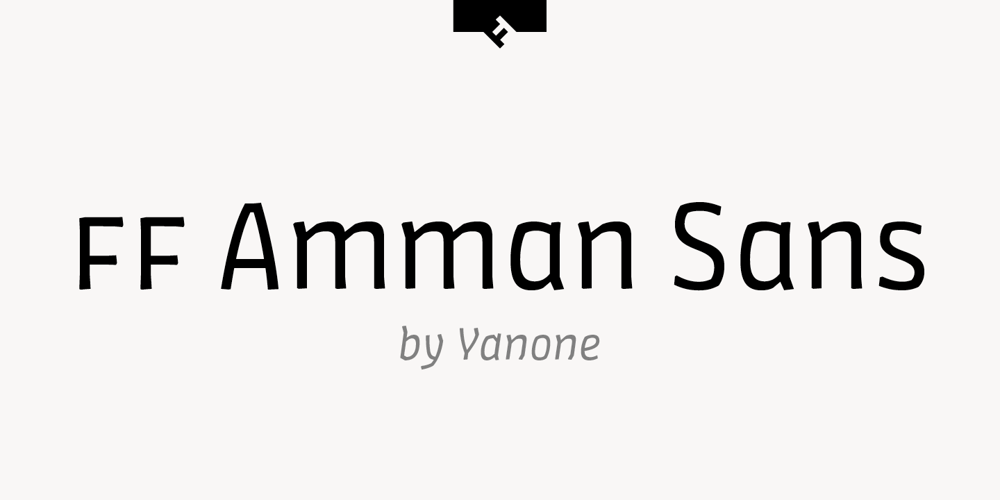
FF Amman Sans Font Family was designed by Yanone and published by FontFont. FF Amman Sans contains 28 styles and family package options. German type designer Yanone created this sans FontFont in 2010. The family has 14 weights, ranging from Thin to Black (including italics) and is ideally suited for advertising and packaging, logo, branding and creative industries as well as poster and billboards. FF Amman Sans provides advanced typographical support with features such as ligatures, small capitals, alternate characters, case-sensitive forms, fractions, and super- and subscript characters. It comes with a complete range of figure set options – oldstyle and lining figures, each in tabular and proportional widths. As well as Latin-based languages, the typeface family also supports the Arabic writing system. This FontFont is a member of the FF Amman super family, which also includes FF Amman Serif.